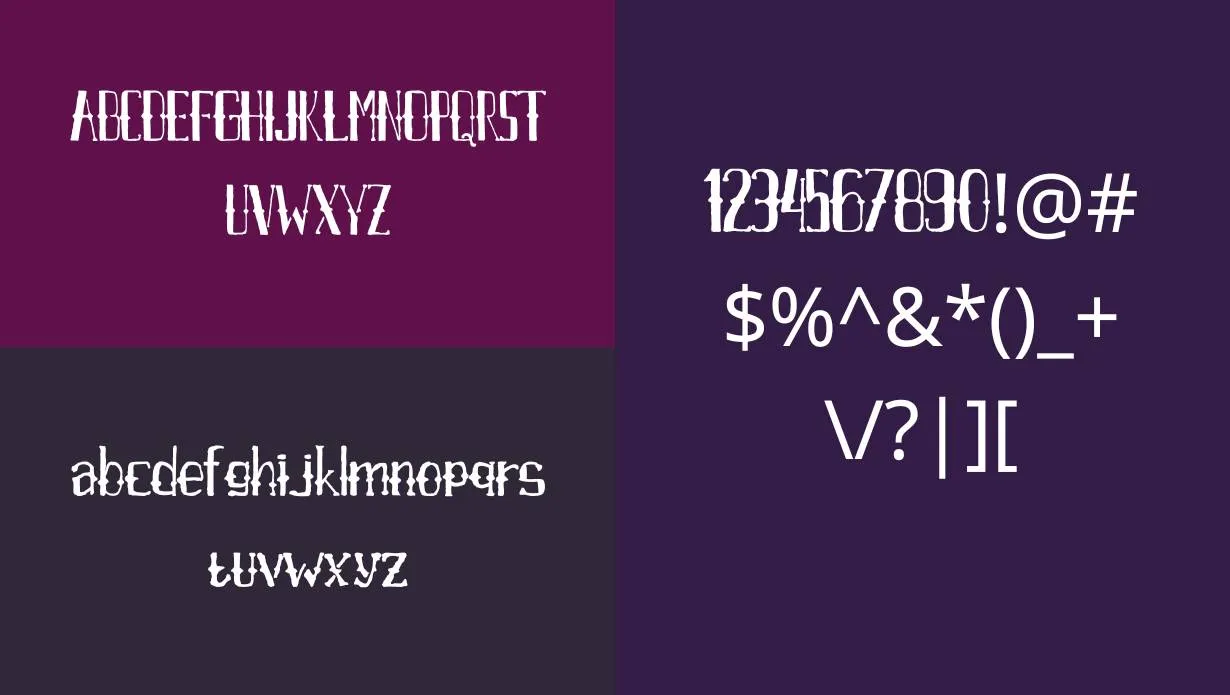
Airpena Rustic Display Font is a typeface with a rustic and weathered design, commonly used in projects that aim to evoke a sense of nature and authenticity.
This font adds an element of vintage charm and a connection to the outdoors in your design work, making it a preferred choice for projects with a rustic and earthy aesthetic. Utilizing the Playfair Display Font opens up possibilities for creating extraordinary designs.